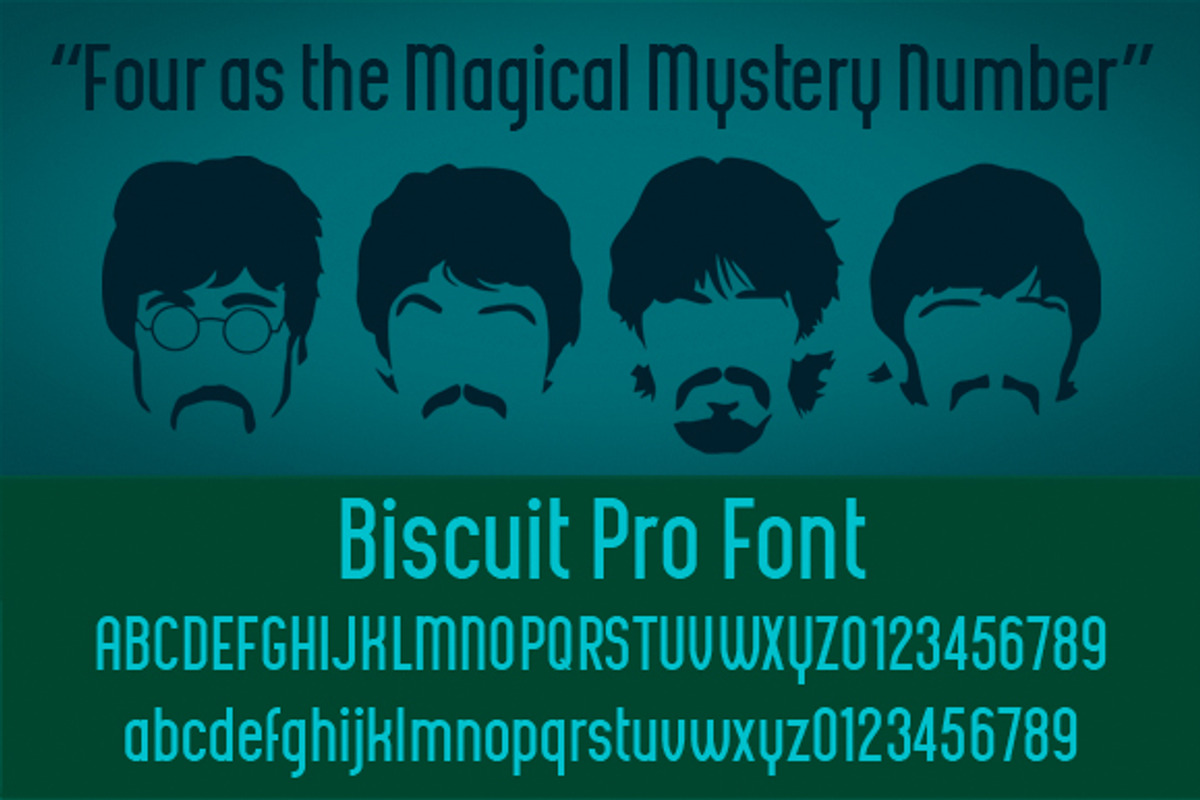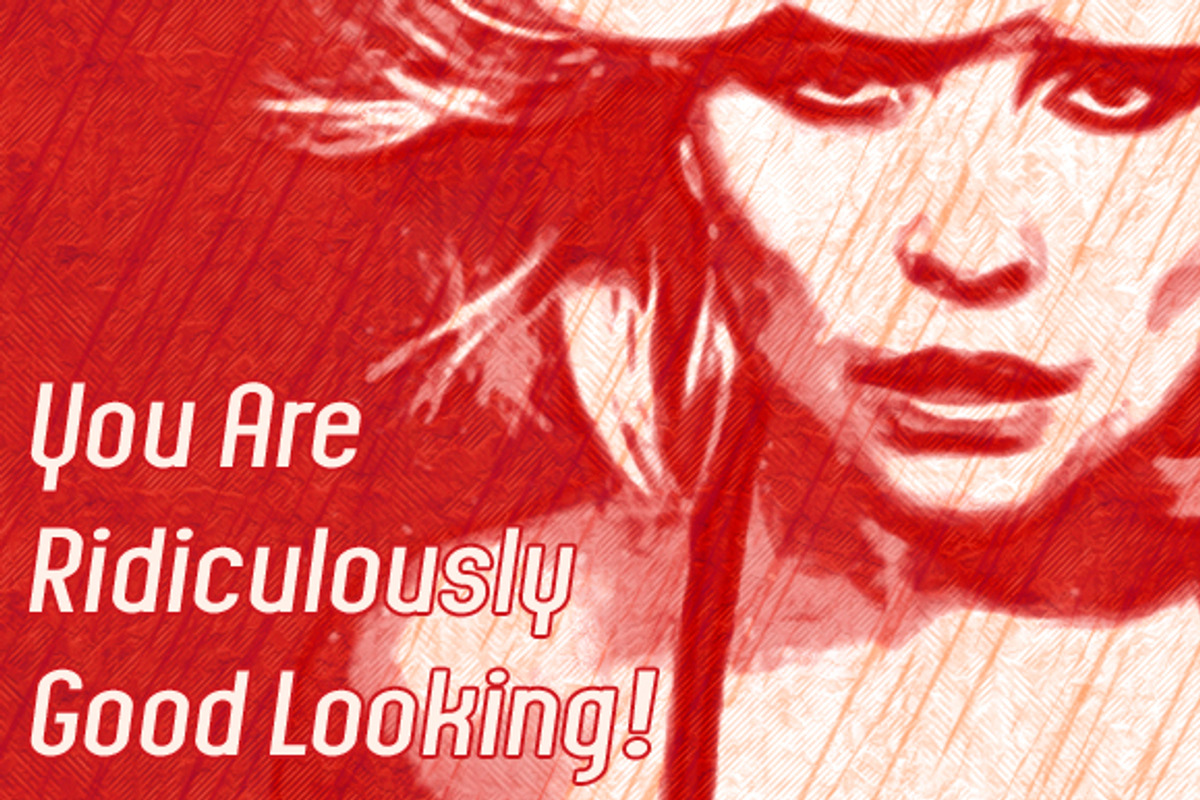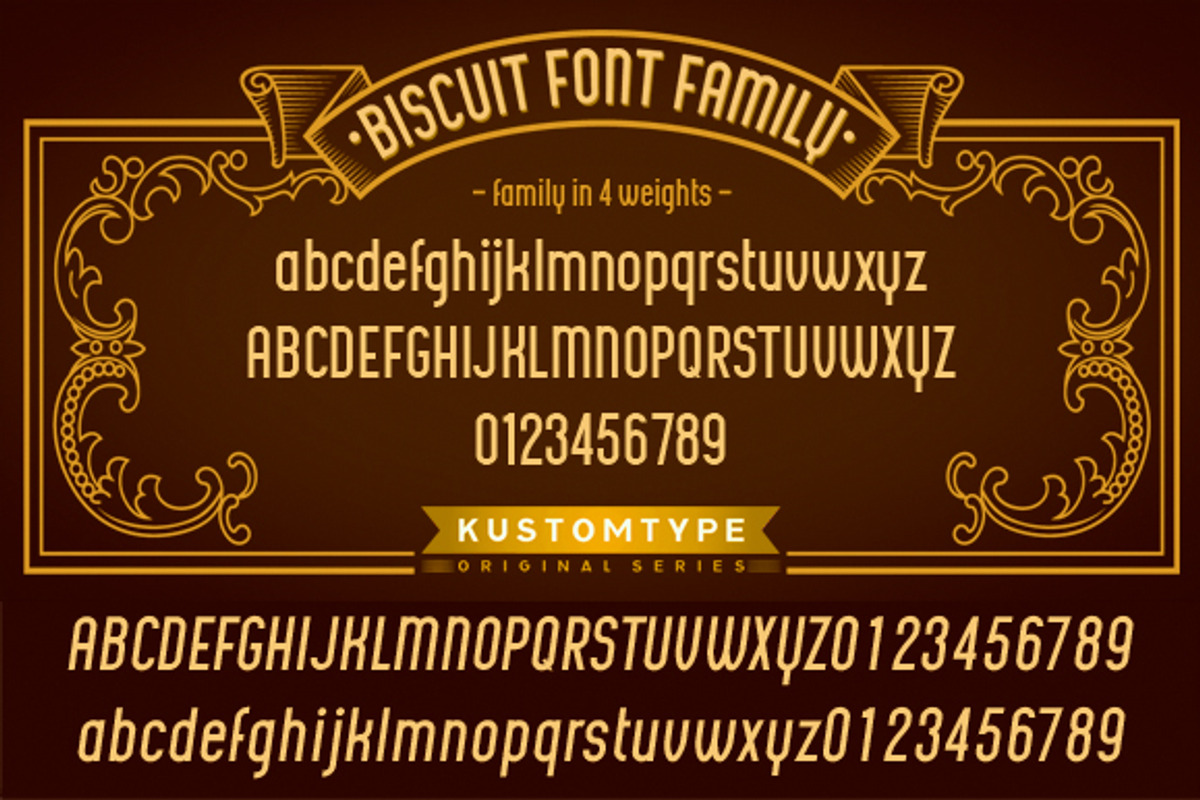
Biscuit Pro Font
Biscuit Pro Font by Kustomtype is a font selected for branding, posters, packaging, typography.
- About this font family Biscuit is a rounded unique typeface, clearly and easy readable with upper- and lowercase.
- This font family has an excellent legibility - both in print and on the web - and an optimized kerning.
Why Biscuit Pro Font is worth a look
Biscuit Pro Font by Kustomtype fits naturally into Branding, posters, packaging, typography.